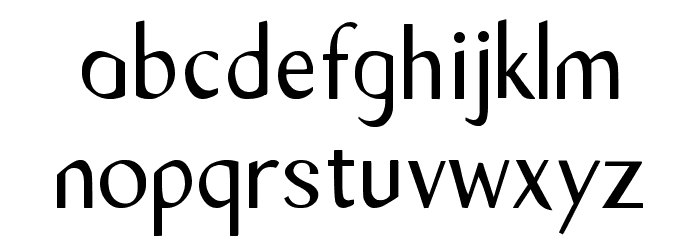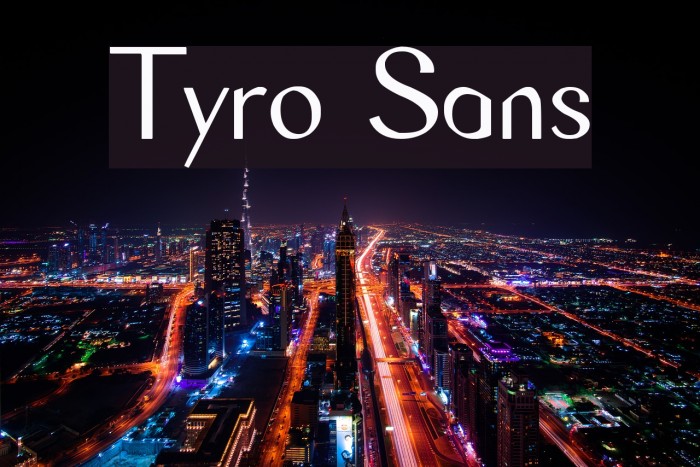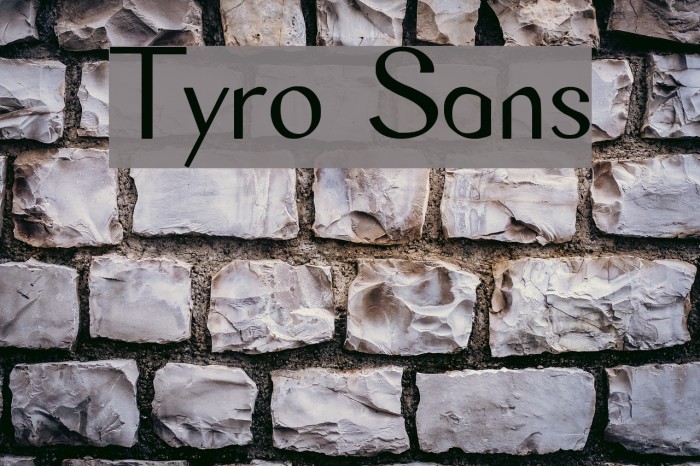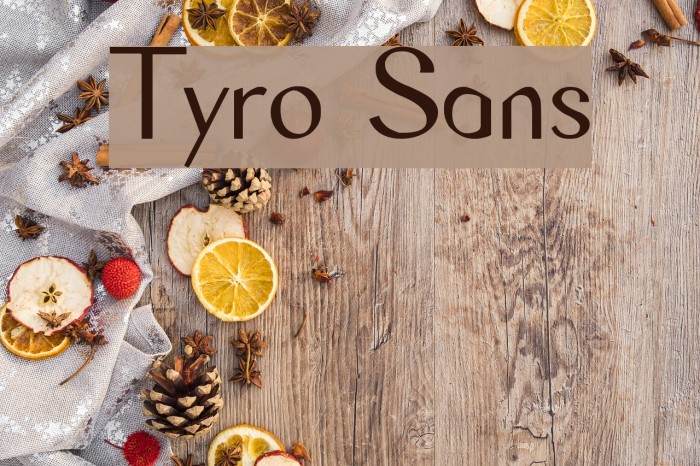
Tyro Sans Font
This font features a clean and modern sans-serif design, characterized by its geometric shapes and uniform stroke widths. The uppercase letters are bold and assertive, while the lowercase letters maintain a friendly and approachable appearance. The numerals are clear and easily distinguishable, making them suitable for various applications. Special characters are well-integrated, ensuring versatility in design projects. The overall aesthetic is sleek and contemporary, ideal for conveying a sense of professionalism and clarity.
A modern sans-serif font with geometric shapes and uniform strokes.
- Proposed Projects: Ideal for branding, web design, corporate materials, and editorial layouts.
- Use Case: Headlines, Body text, Logos